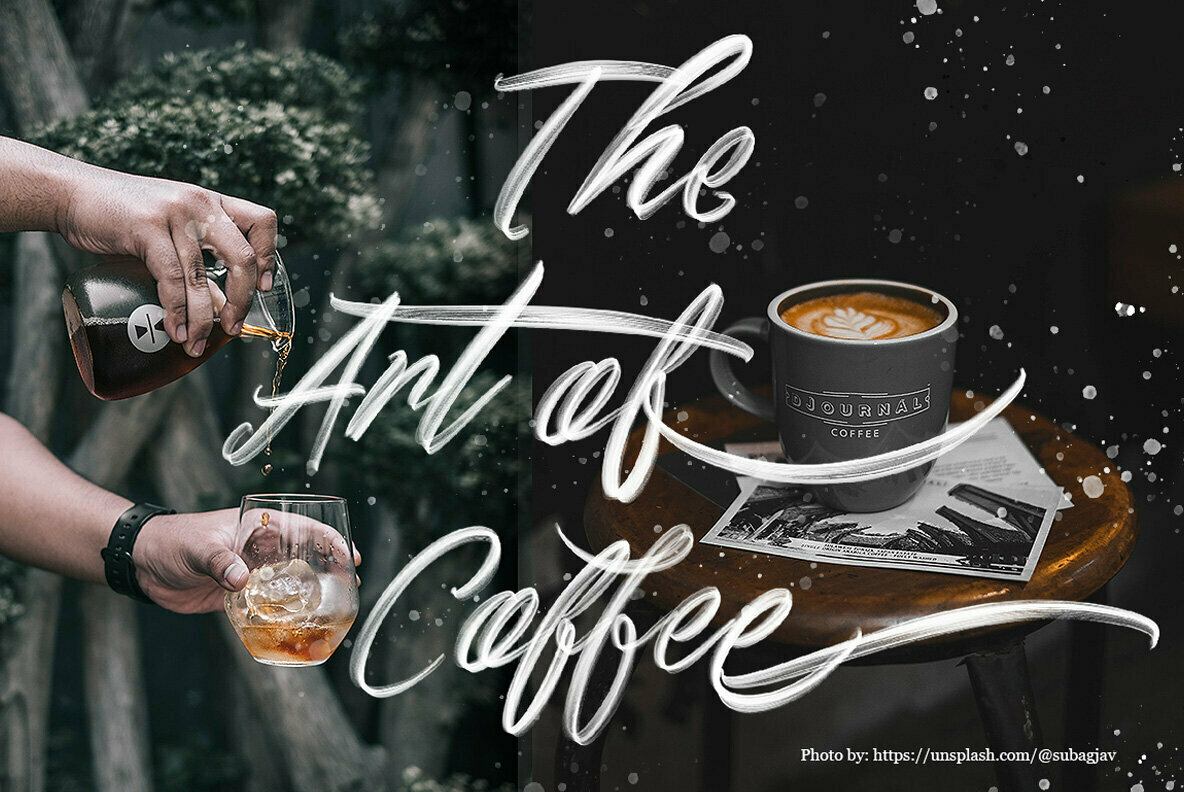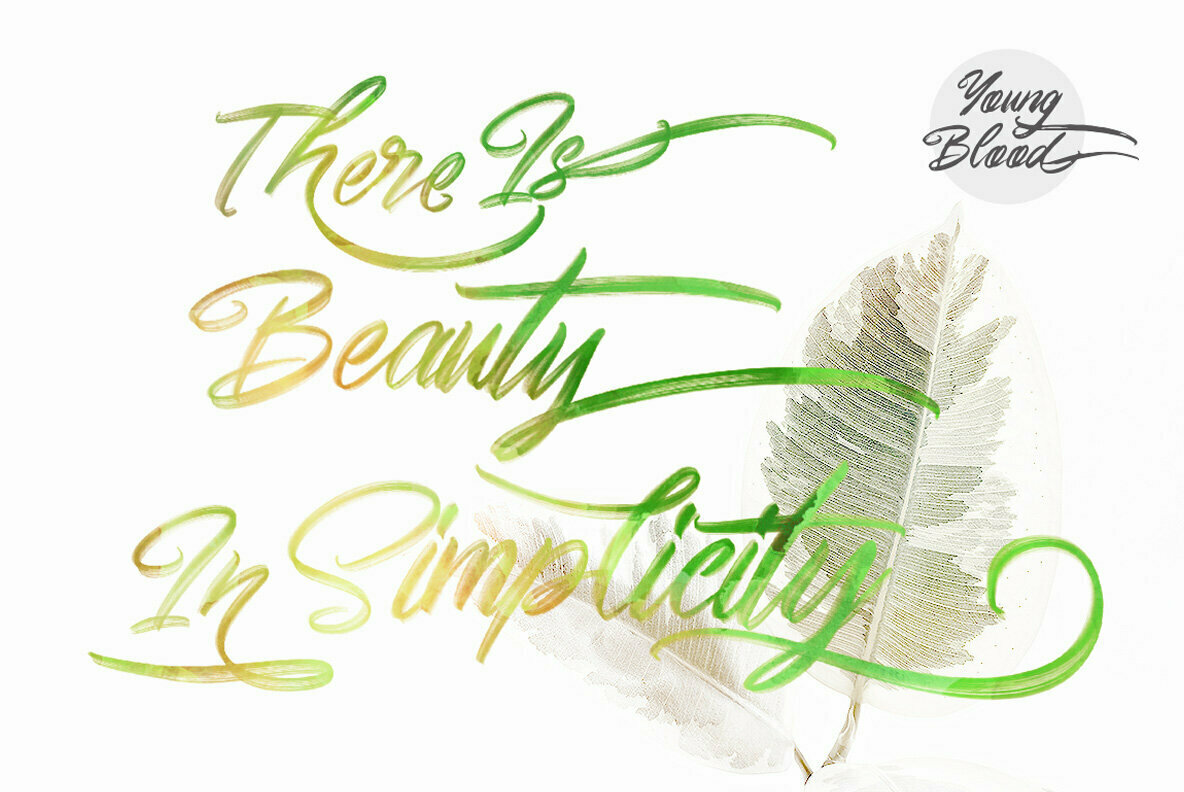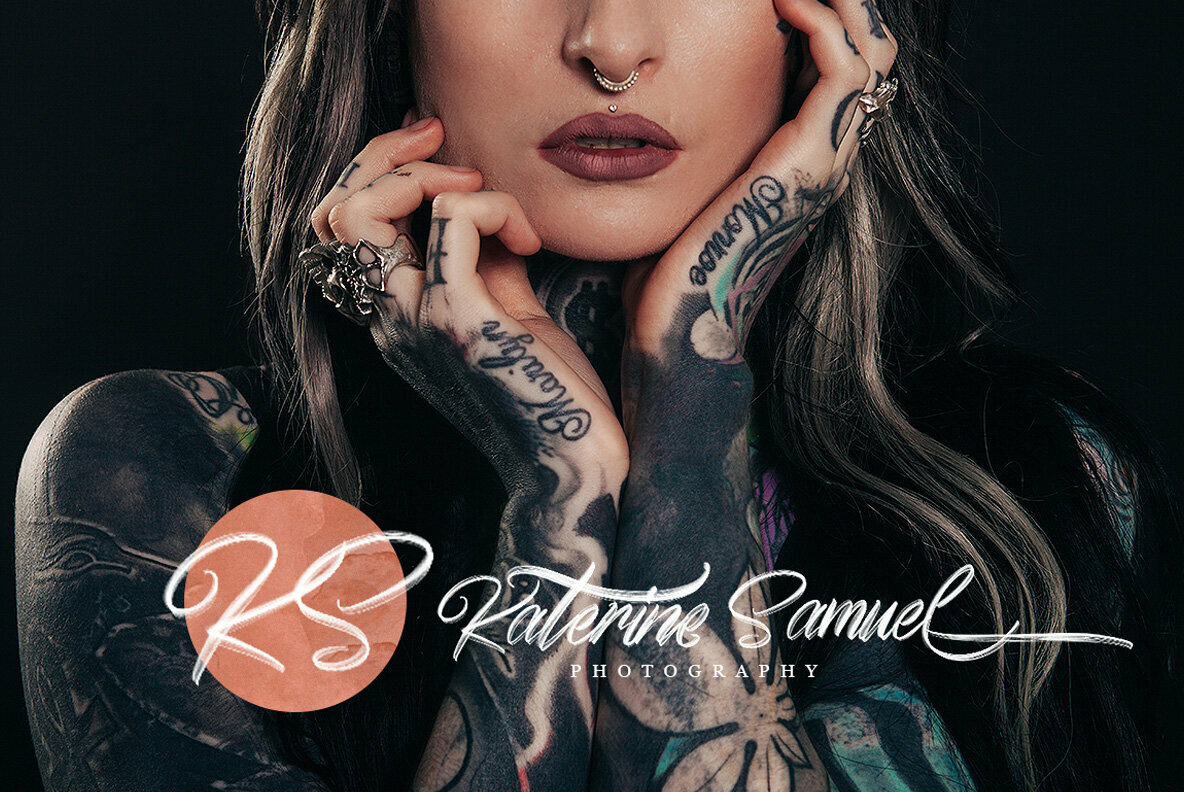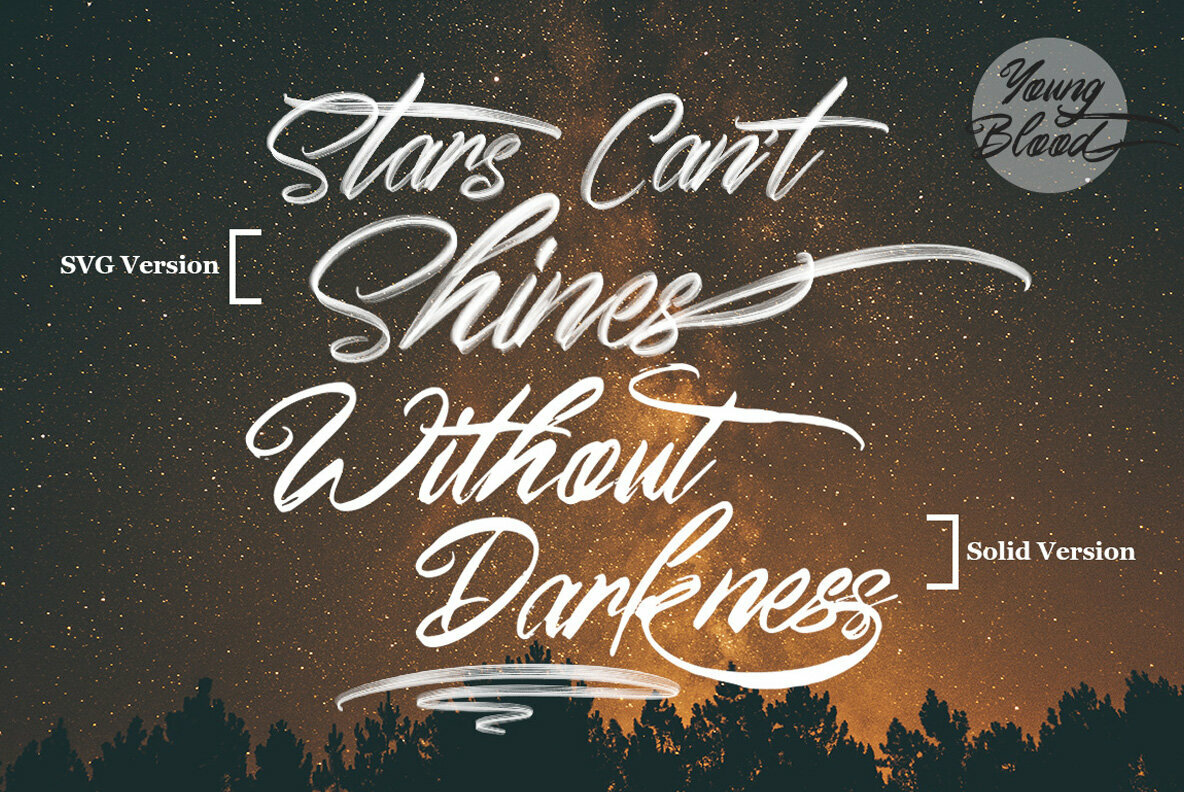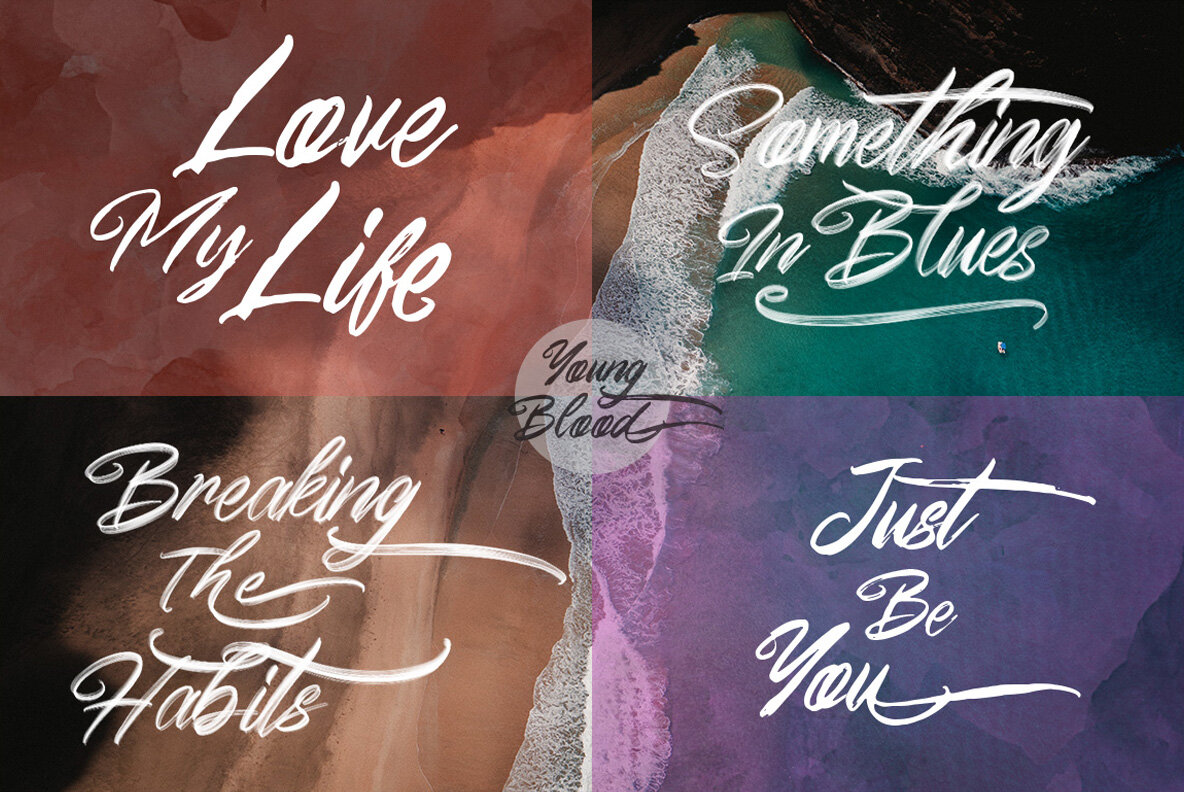
Young Blood SVG and Solid Font
The Young Blood font offers an intriguing blend of script with a distinctive grunge aesthetic. Available in two styles—SVG and Solid—this typeface brings a spirited character to diverse design projects. Whether you are working on dynamic logos, eye-catching t-shirts, or unique event designs, Young Blood punctuates your work with edgy flair. In the digital realm, the Young Blood SVG version demands specific software, but its unique, gritty texture makes it a worthwhile addition to your creative toolkit. For users without access to newer software versions, the Solid version ensures usability across different platforms. Elevate your projects with this font that combines aesthetic unpredictability with robust utility.Young Blood: Handwritten Script With Grunge Flair